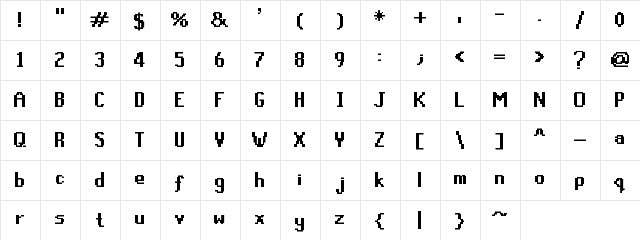
RuneScape UF Regular
| Designer | nayfan |
Design Context for RuneScape UF Typeface
RuneScape UF takes a measured approach to typography — its balanced proportions and neutral character make it a reliable workhorse for both digital and print work.
Pro Tip: Pair RuneScape UF with a font of contrasting weight or personality to build a more expressive typographic hierarchy.